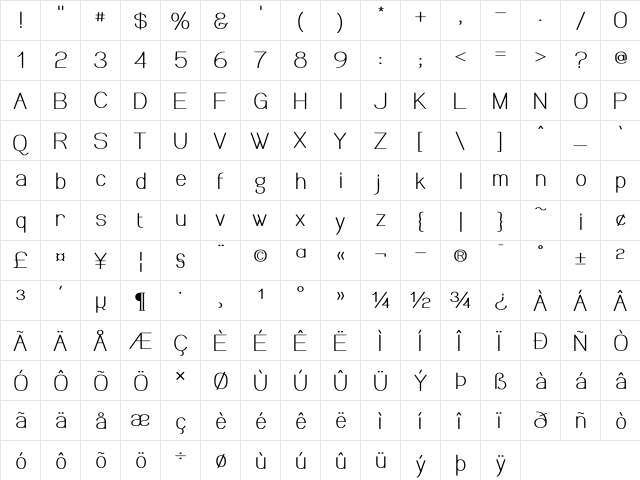
Meichic Demo Font Preview
Meichic Demo
| Foundry | Graham Meade |
Design Context for Meichic Typeface
Meichic offers clean, dependable letterforms without strong stylistic allegiance, making it a practical choice for designers who need flexibility.